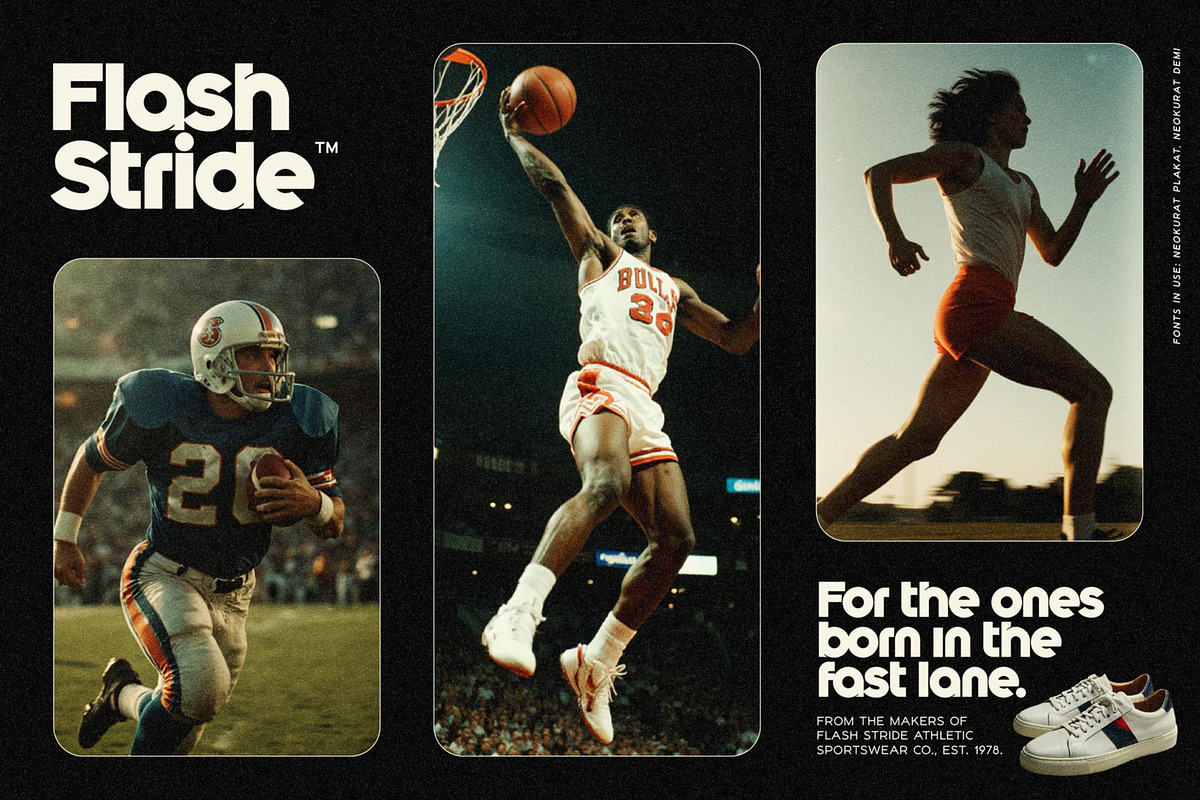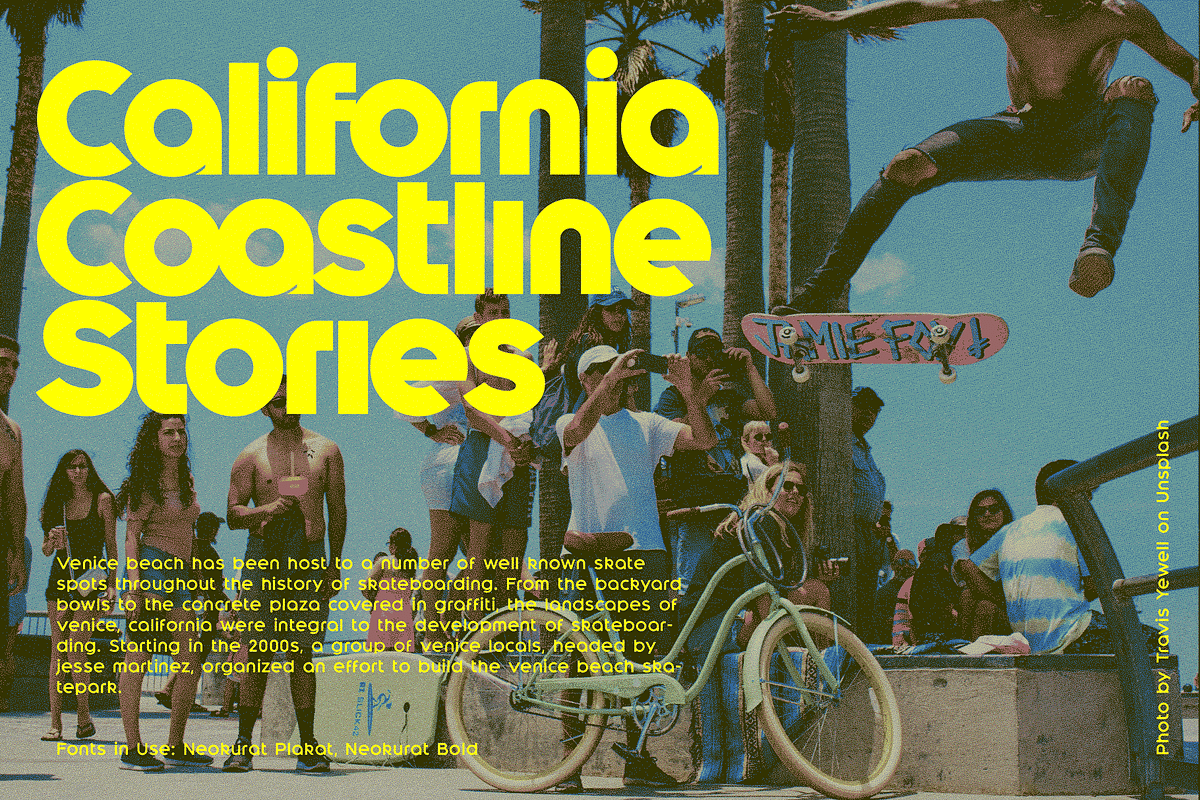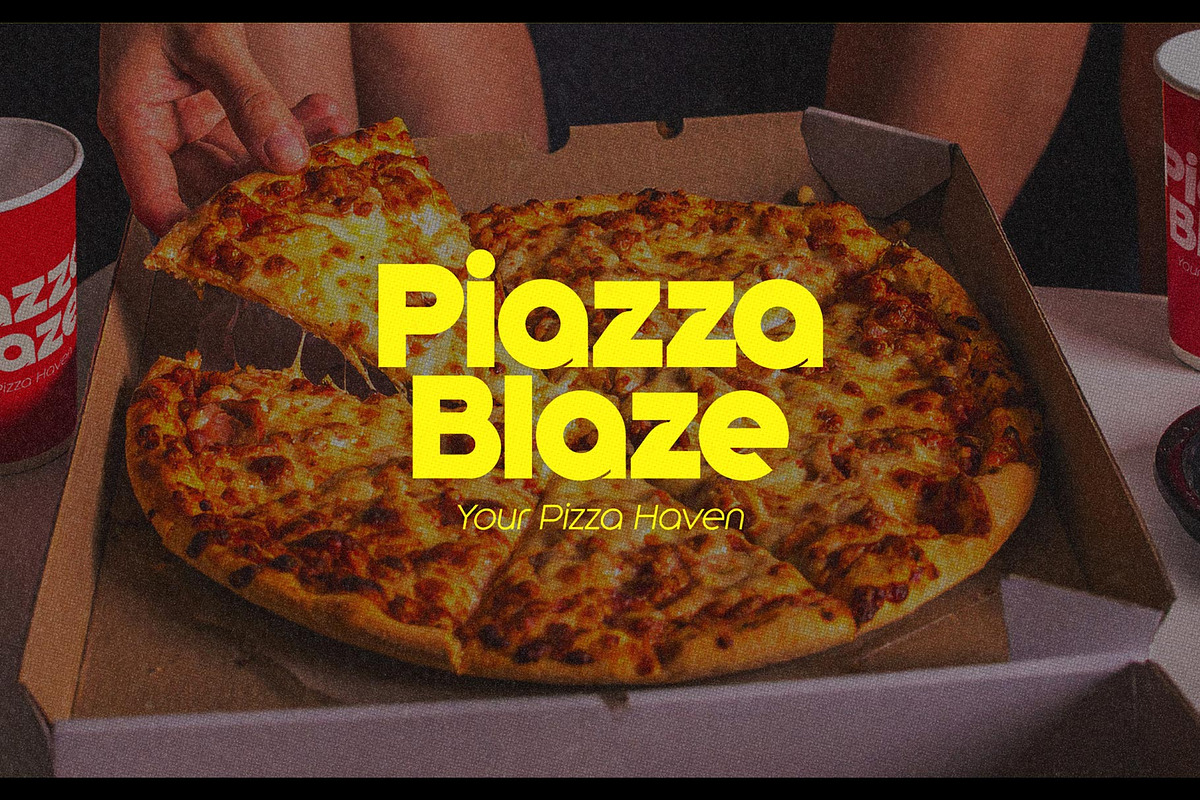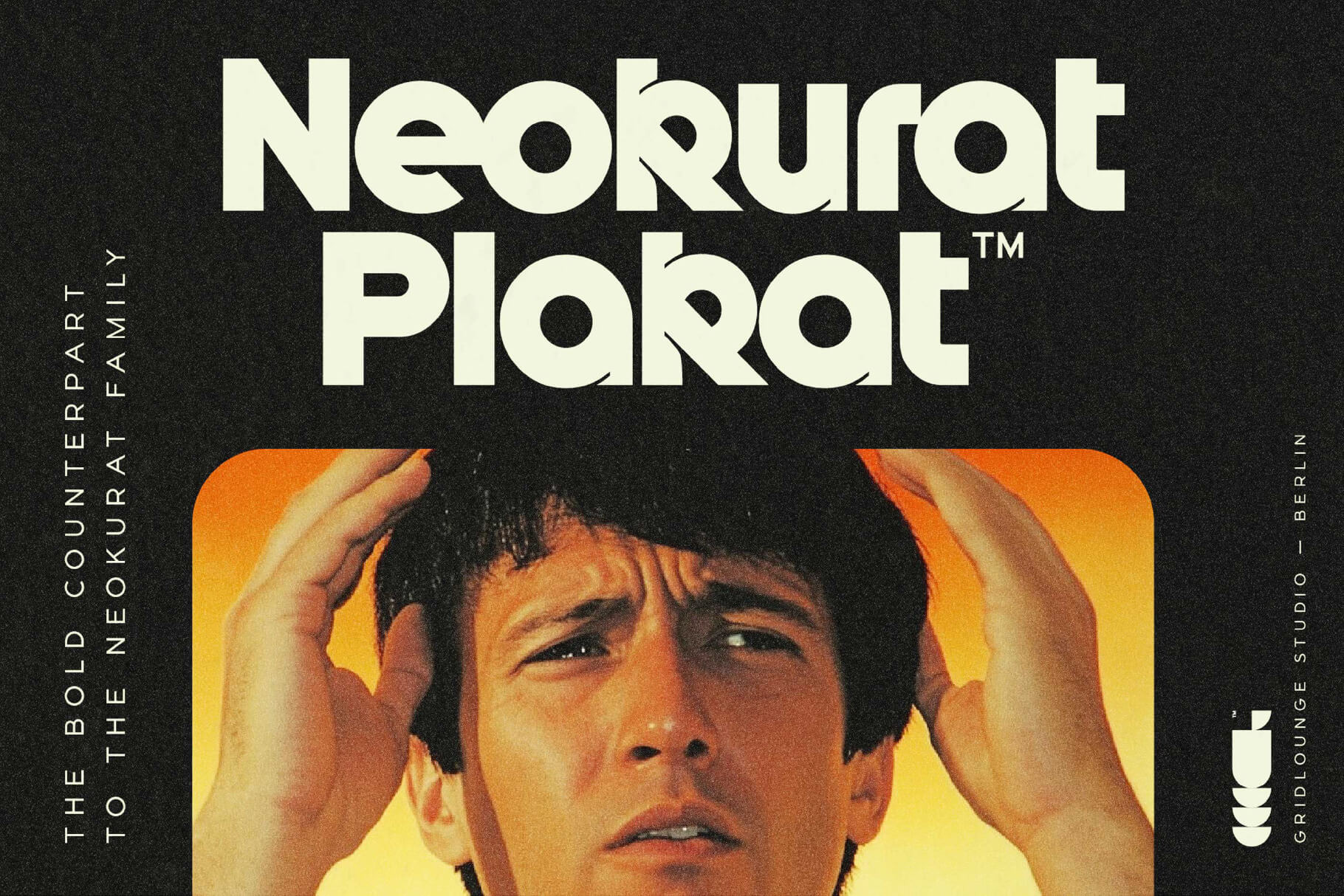
Neokurat Plakat – Display Font
Neokurat Plakat is the bold counterpart to the Neokurat family. Designed for strong statements and visual impact, it merges brutalist clarity with understated geometric precision. Ideal for posters, Logos, commercial branding or premium editorial work, this weight delivers an unmistakable presence. With its minimalist structure, Neokurat Plakat adds both strength and order to your typographic toolkit.